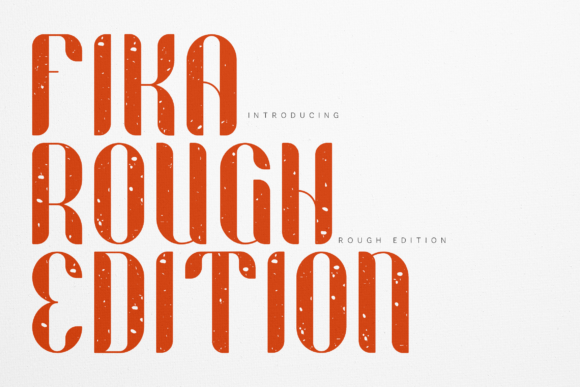
Fika Rough: A Bold Display Typeface for Scroll-Stopping Marketing
Fika Rough isn’t just another vintage font—it’s a strategic design asset built for impact in fast-moving digital spaces. As a display typeface, it’s engineered to command attention in under two seconds: the average time a viewer spends on a social media thumbnail or ad banner before scrolling past. Its handcrafted distressed texture—think weathered signage, ink-bleed letterpress, and tactile print imperfections—adds warmth and authenticity that sterile digital fonts can’t replicate. That’s why marketers, content creators, and brand teams reach for Fika Rough when they need visuals that feel human, memorable, and unmistakably intentional.
What sets Fika Rough apart is how its personality serves communication—not just decoration. The bold weight and irregular edges create strong visual hierarchy without sacrificing legibility at scale. On Instagram posts or Pinterest pins, it anchors headlines with confidence. In YouTube thumbnails, it delivers instant recognition—even at 120px width. For email headers or landing page banners, it signals energy and approachability while reinforcing brand voice. Unlike overly ornate script or ultra-thin serif fonts, Fika Rough balances character with clarity, making it ideal for short-form messaging where every pixel counts.
Think about your next product launch: a limited-edition drop, seasonal sale, or new course announcement. Using Fika Rough for the headline—“SUMMER SALE IS LIVE”—immediately conveys urgency and craft. Paired with a clean sans serif (like Inter or Montserrat) for body copy or pricing details, it creates rhythm and contrast that guides the eye naturally. The same pairing works flawlessly in Reels covers, digital ads, and branded templates—ensuring consistency across platforms without visual fatigue.
For personal branding or small business campaigns, Fika Rough helps differentiate in saturated feeds. A wellness coach using it for an inspirational quote graphic (“Trust Your Journey”) gains emotional resonance through texture and tactility—qualities audiences associate with sincerity and experience. A boutique coffee shop launching a “First Brew Friday” promo uses Fika Rough in its logo mark and social banners to evoke artisanal warmth, while keeping menu details legible in a supporting sans serif. That duality—distinctive yet functional—is rare in display fonts.
Readability on mobile remains non-negotiable—and Fika Rough delivers when used intentionally. Avoid setting it below 24px in static graphics or smaller than 36px in video thumbnails. Its open counters and generous x-height ensure characters remain distinguishable even in compressed previews. For fast-scrolling environments like TikTok or Instagram Feed, reserve Fika Rough for primary headlines only—never long paragraphs or fine print. Use it to highlight one core message: a CTA, date, offer, or brand name. Let the texture do the work of standing out; don’t ask it to carry dense information.
Font pairing is where Fika Rough truly shines as a strategic tool. Pair it with a neutral sans serif for captions, CTAs, or data points—this contrast boosts scannability and reinforces professionalism. For editorial-style campaigns (think blog series headers or newsletter features), try it alongside a refined serif like Playfair Display or Lora to add sophistication without competing for attention. Avoid pairing with other distressed, handwritten, or high-contrast display fonts—they’ll clash rather than complement. Simplicity in supporting type keeps Fika Rough’s personality front and center.
Real-world use cases prove its versatility. A fitness brand used Fika Rough for webinar banners (“MOVE WITH PURPOSE”), achieving a 22% higher click-through rate than previous sans-serif-only designs. An online stationery shop applied it to product teaser graphics (“Hand-Stamped Cards—Coming Soon”), generating 3x more saves on Pinterest. A podcast launched a content series with Fika Rough titles layered over minimalist photography—resulting in consistent brand recall across YouTube Shorts, Apple Podcasts artwork, and email headers. These aren’t aesthetic choices alone—they’re audience engagement levers.
Fika Rough also supports brand recognition over time. When used consistently for key campaign elements—launch announcements, holiday promotions, signature series—it becomes part of your visual shorthand. Followers begin associating that textured boldness with your voice, values, and offerings. That’s how fonts move beyond decoration into identity architecture. It doesn’t replace your logo—but it strengthens the ecosystem around it, especially in digital touchpoints where logo space is limited and context is fleeting.
In a landscape crowded with algorithm-driven content, Fika Rough offers something increasingly rare: intentionality with impact. It’s not about looking “vintage” for nostalgia’s sake—it’s about leveraging texture, weight, and rhythm to make messages land faster, resonate deeper, and stay memorable longer. Whether you’re designing a Black Friday banner, a creator toolkit cover, or a brand refresh for a local business, Fika Rough gives your typography the confidence to lead—not follow.